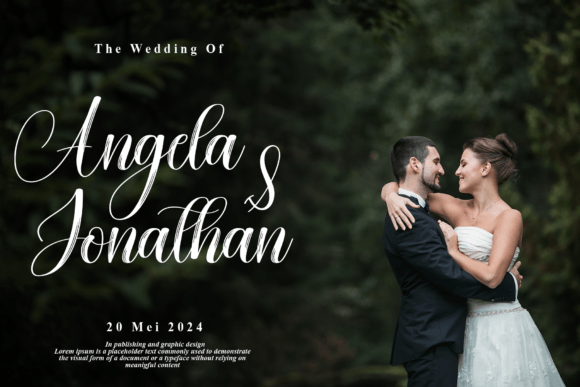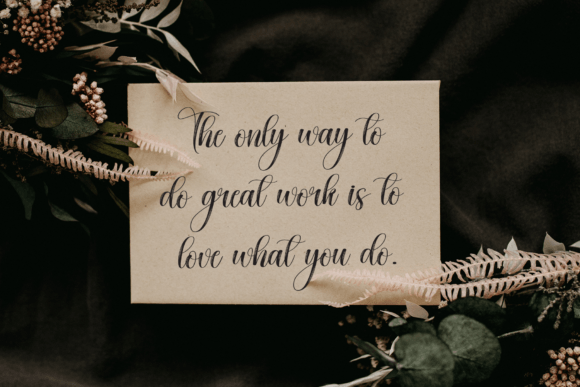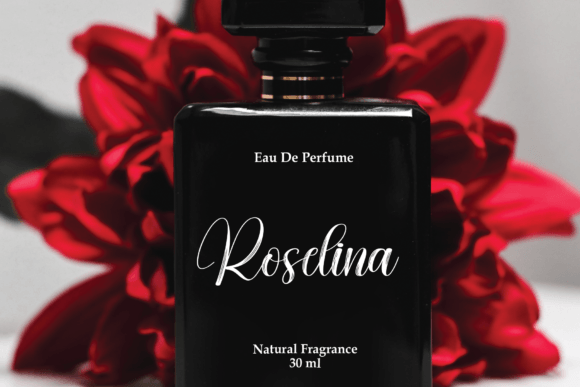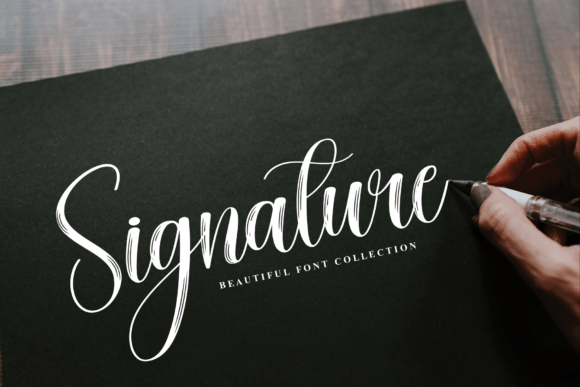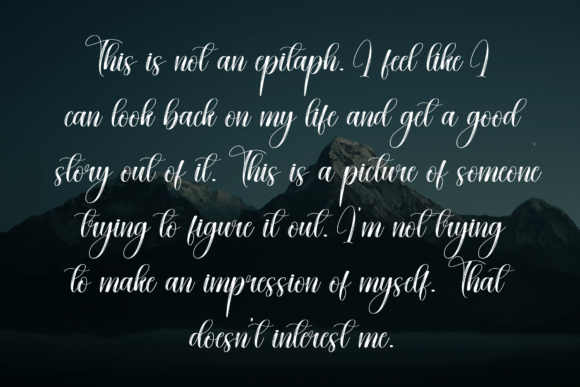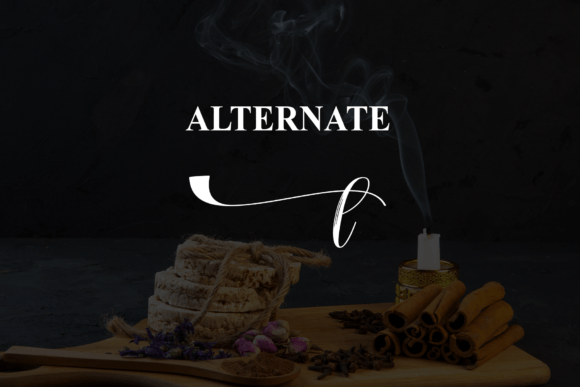
Aromatic Font: The Sweet and Friendly Handwritten Font for Your Creative Projects
Are you a designer or crafter looking for a unique and versatile font to elevate your creative projects? Look no further than Aromatic Font, a sweet and friendly handwritten font that’s perfect for a wide range of designs. With its natural and distinctive style, Aromatic Font is sure to capture the attention of your audience and leave a lasting impression.
What Makes Aromatic Font So Special?
Aromatic Font is a one-of-a-kind handwritten font that’s been carefully crafted to bring a touch of warmth and personality to your designs. Its unique style is characterized by flowing lines, subtle imperfections, and a playful charm that’s sure to delight. Whether you’re creating a logo, branding materials, or digital content, Aromatic Font is the perfect choice for adding a human touch to your work.
The Benefits of Using Aromatic Font
So why choose Aromatic Font for your next project? Here are just a few benefits of using this versatile and beautiful font:
- Unique and distinctive style: Aromatic Font stands out from the crowd with its natural and handmade look, making it perfect for designers and crafters who want to create something truly special.
- Highly versatile: Whether you’re creating a logo, social media graphics, or digital content, Aromatic Font is incredibly versatile and can be used in a wide range of designs.
- Easy to read: Despite its playful and whimsical style, Aromatic Font is incredibly easy to read, making it perfect for body text and longer blocks of content.
- Perfect for branding: With its friendly and approachable style, Aromatic Font is perfect for creating a strong brand identity that resonates with your target audience.
How to Use Aromatic Font in Your Designs
So how can you start using Aromatic Font in your designs? Here are a few ideas to get you started:
- Logos and branding materials: Use Aromatic Font to create a unique and memorable logo that captures the personality of your brand.
- Social media graphics: Add a touch of personality to your social media graphics with Aromatic Font, perfect for creating engaging and shareable content.
- Digital content: Use Aromatic Font to create engaging and easy-to-read digital content, from blog posts to email newsletters.
- Crafting and DIY projects: Aromatic Font is also perfect for crafters and DIY enthusiasts, adding a personal touch to handmade cards, gift tags, and other projects.
Tips for Getting the Most Out of Aromatic Font
To get the most out of Aromatic Font, here are a few tips to keep in mind:
- Experiment with different colors and textures: Aromatic Font looks great in a variety of colors and textures, so don’t be afraid to experiment and find the perfect combination for your design.
- Pair with other fonts: Aromatic Font pairs beautifully with other fonts, so try combining it with a bold or serif font to create visual interest.
- Use it consistently: To create a strong brand identity, use Aromatic Font consistently across all of your designs and marketing materials.
In conclusion, Aromatic Font is a sweet and friendly handwritten font that’s perfect for designers and crafters looking to add a touch of personality to their creative projects. With its unique and distinctive style, Aromatic Font is sure to capture the attention of your audience and leave a lasting impression. So why wait? Download Aromatic Font today and start creating beautiful and engaging designs that stand out from the crowd!